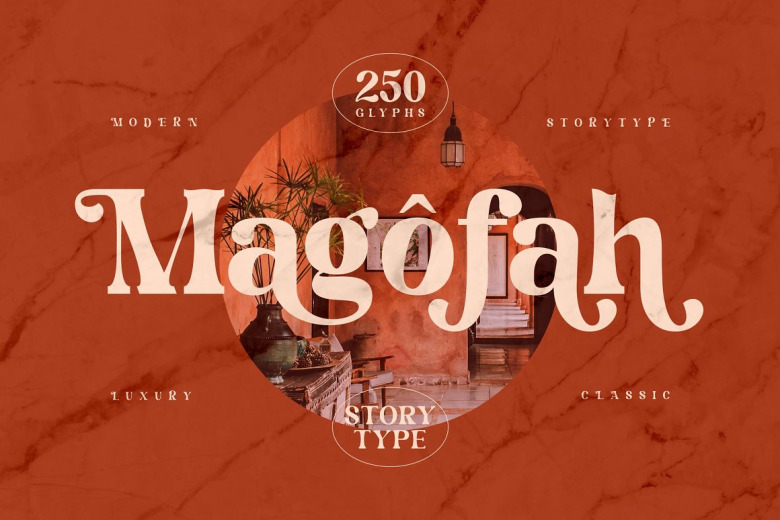
Magofah Font
Magofah is a Modern displaya serif font from designer Storytype Studio. Use it to make your ideas even more realistic and create spectacular designs!
This typeface is perfect for an elegant & luxury logo, book or movie title design, fashion brand, magazine, clothes, lettering, quotes, and so much more.